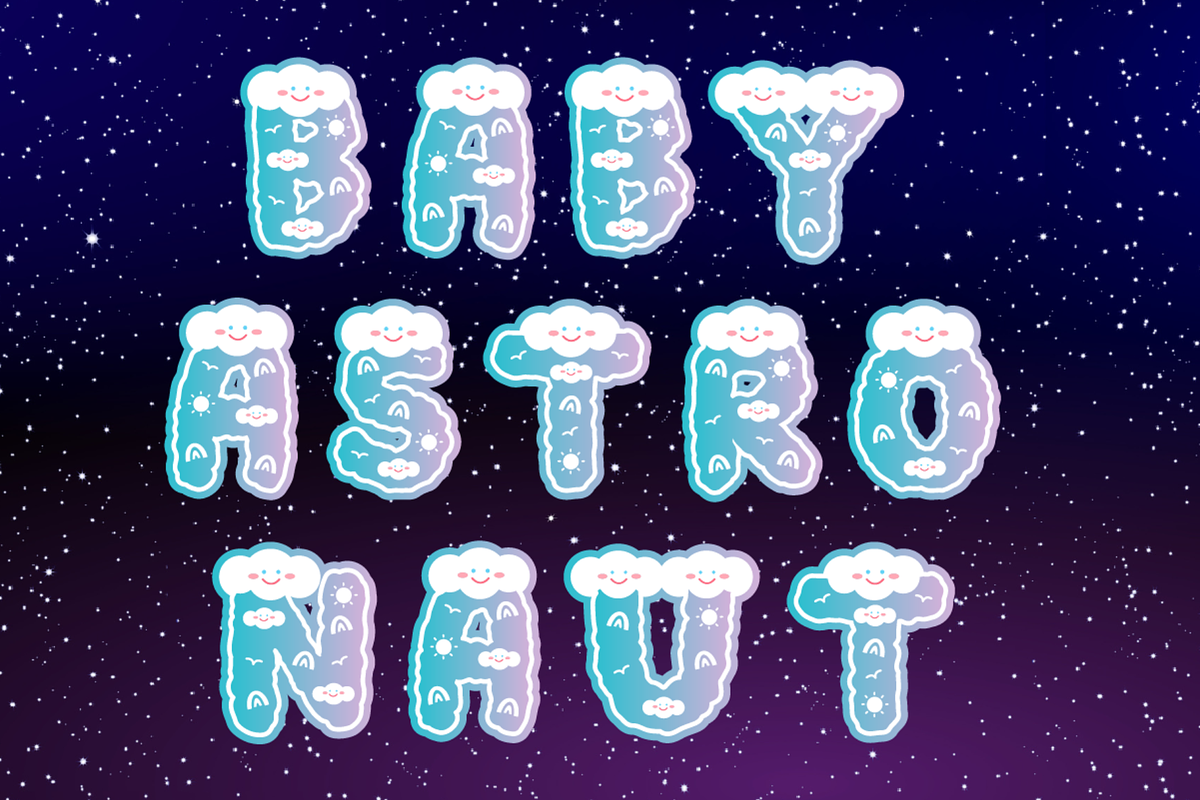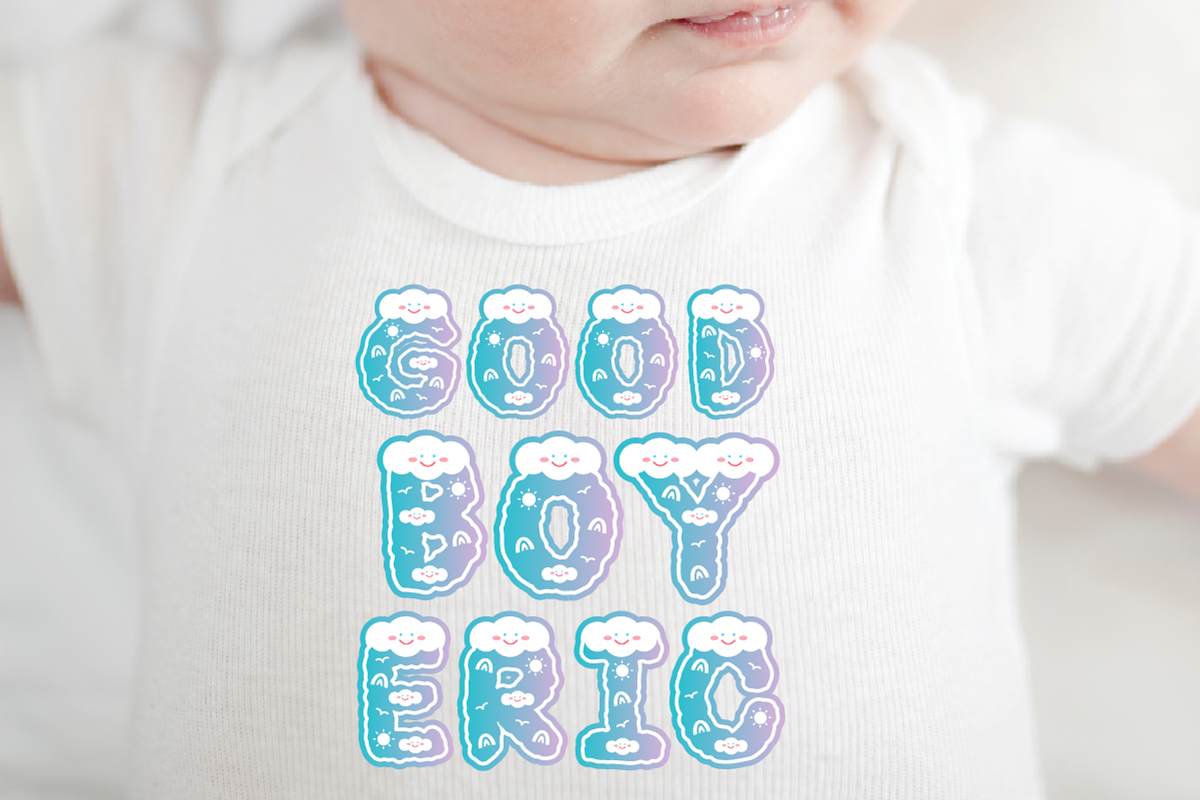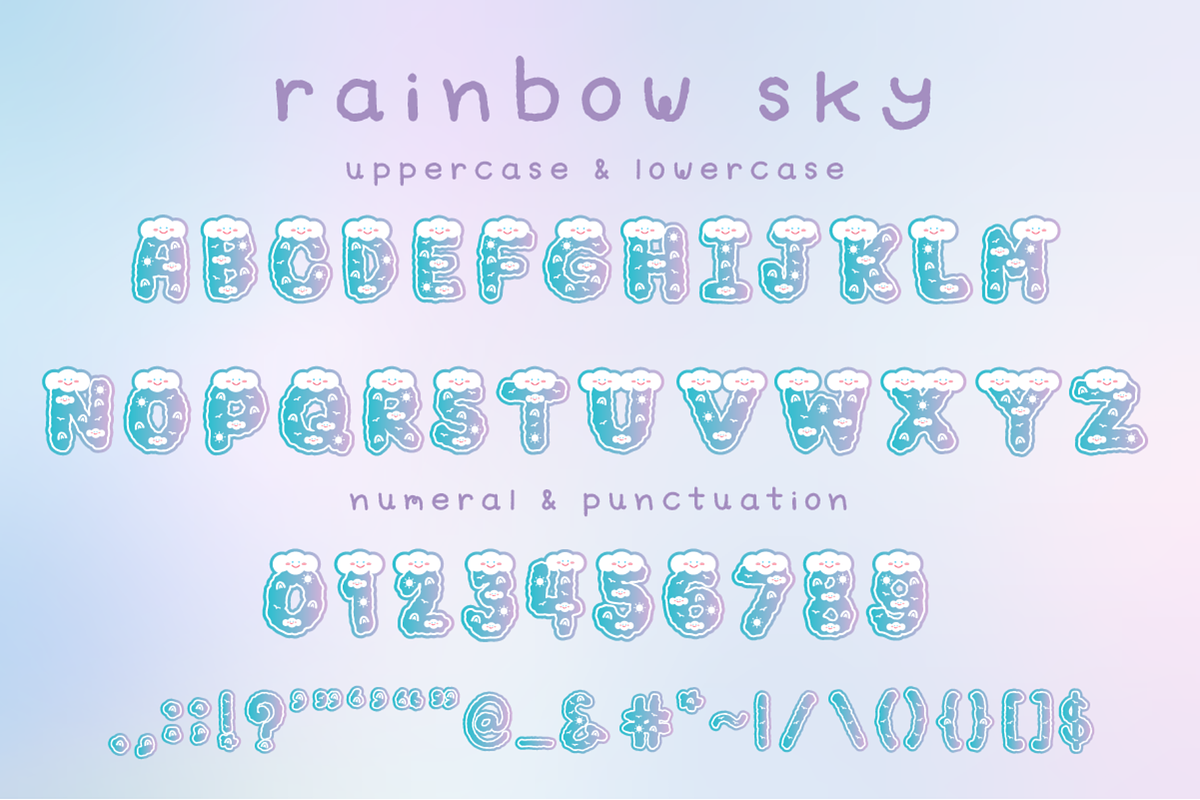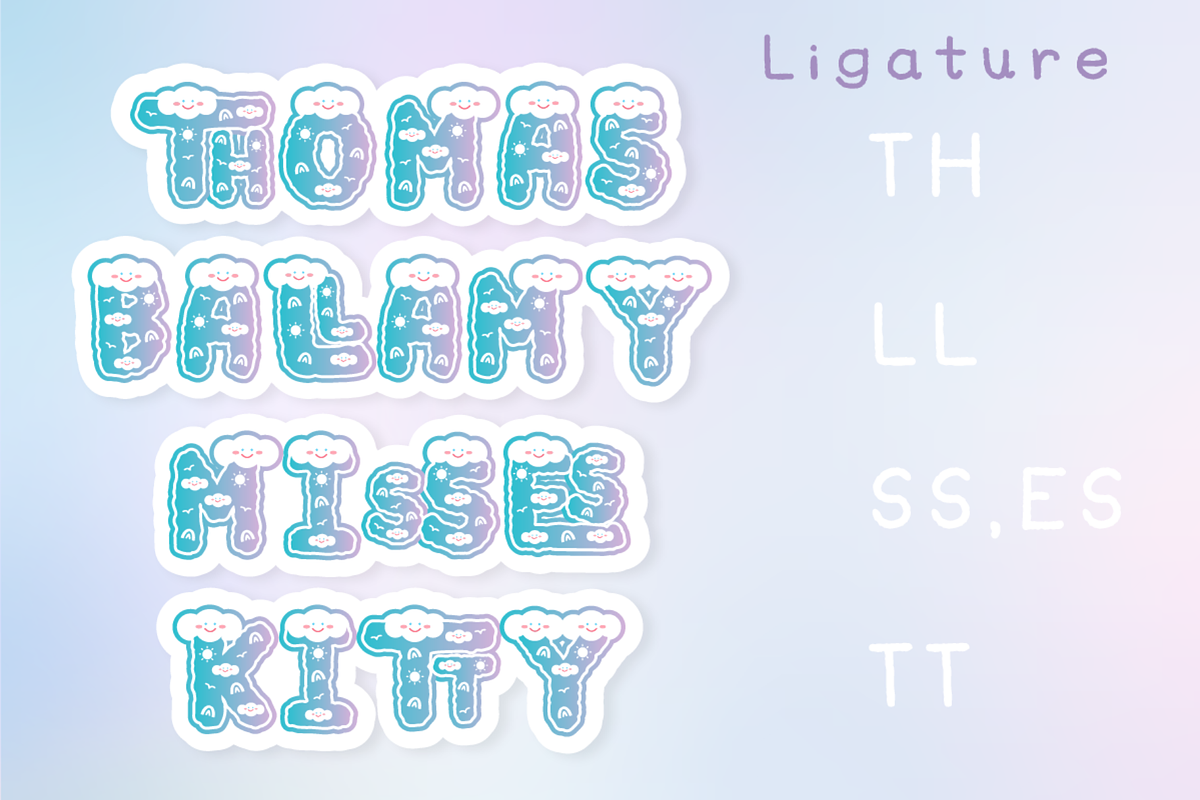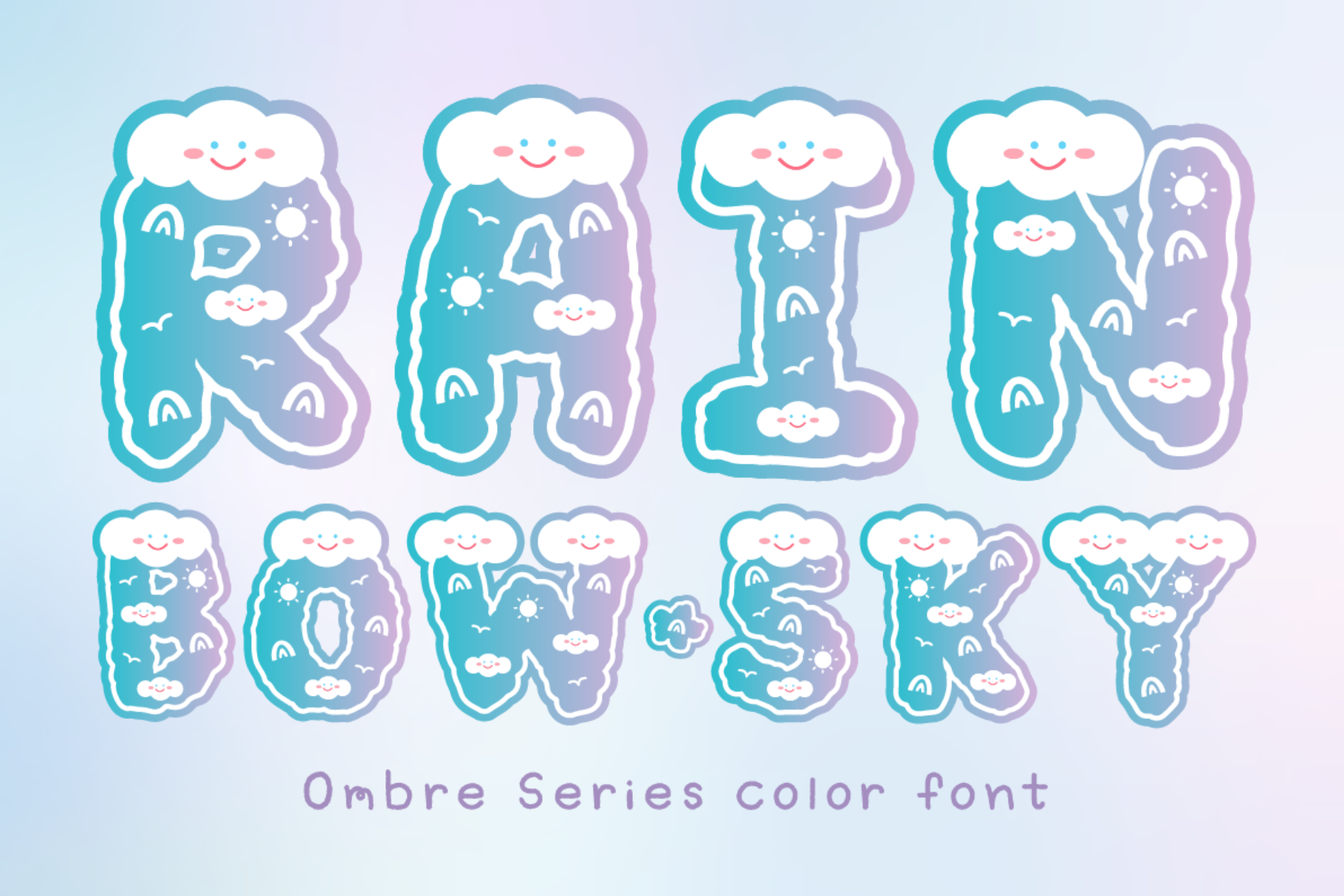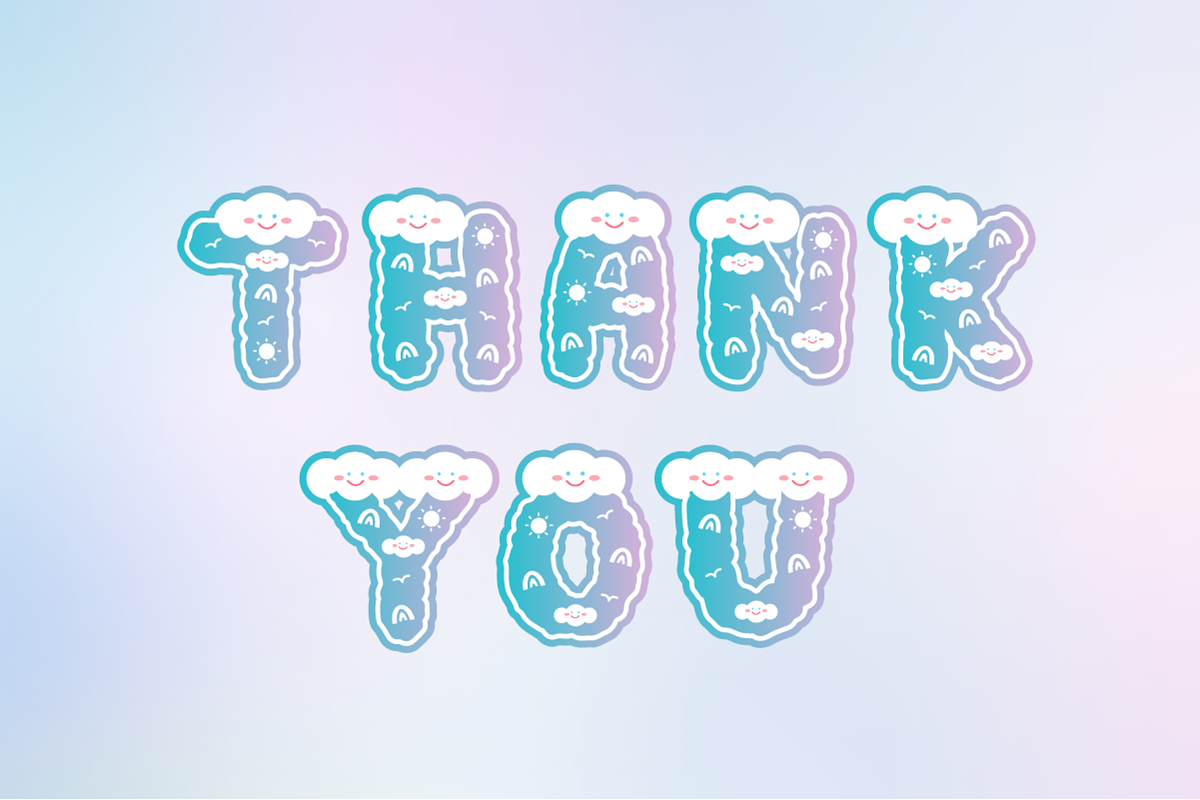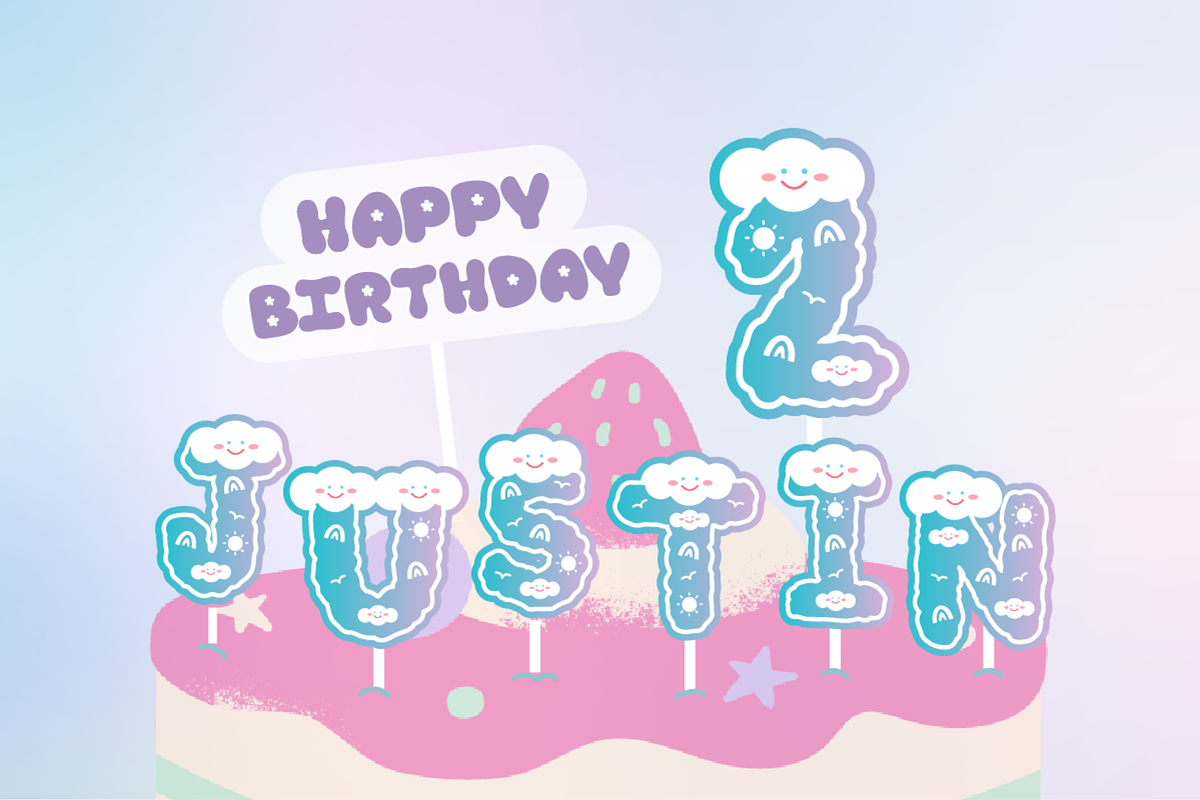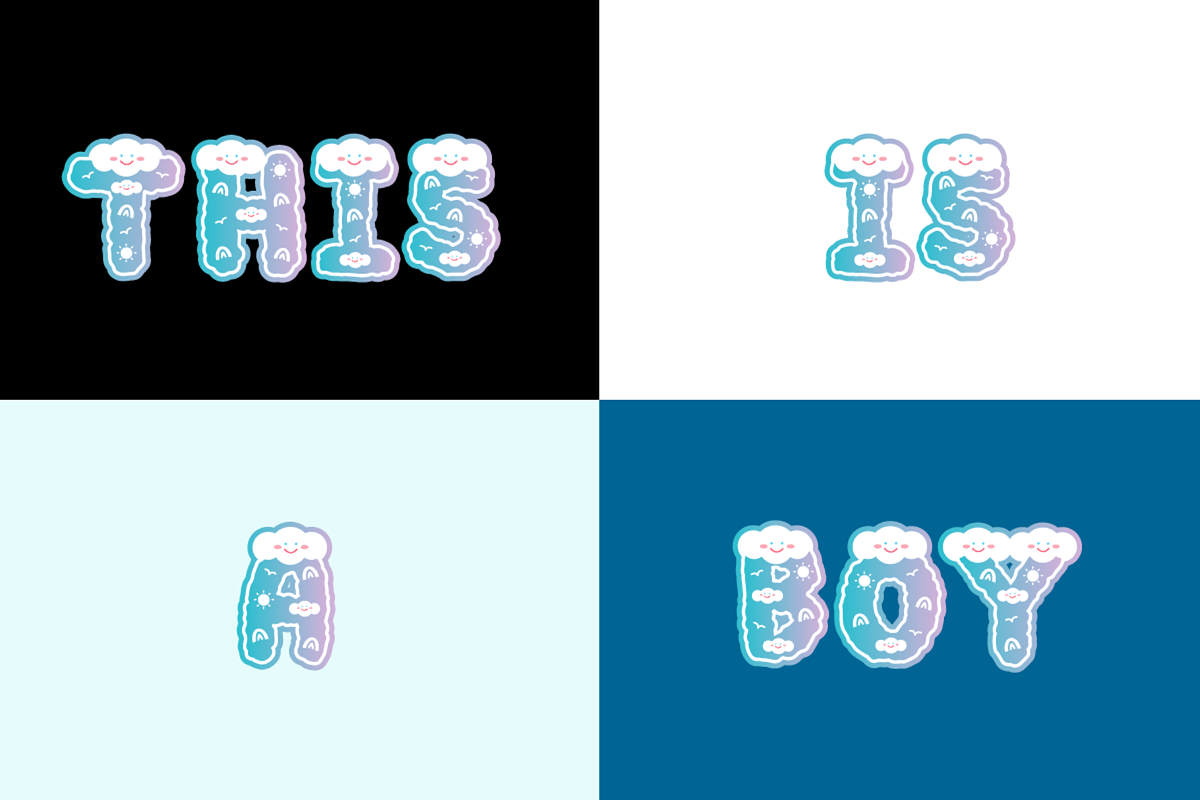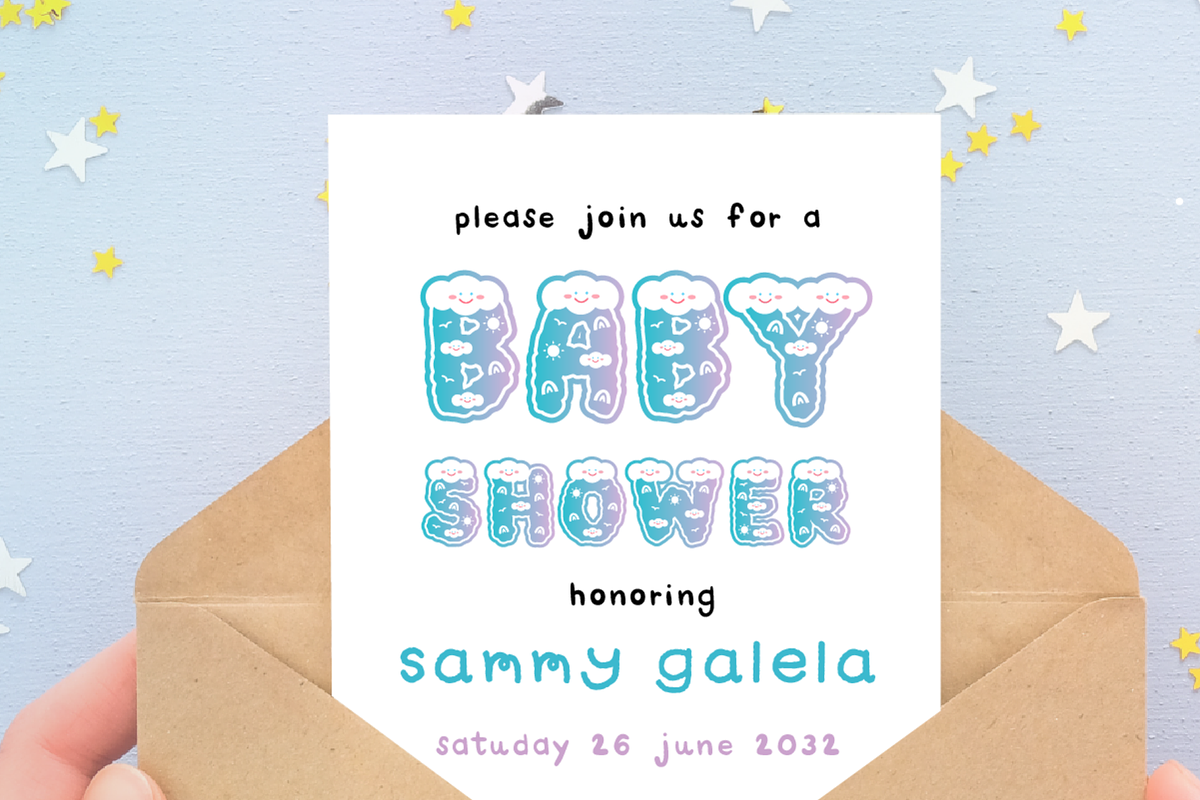
Rainbow Sky - SVG Color Cute Font
Rainbow Sky Cute SVG Color Font is a charming and whimsical typeface that brings a sense of joy and playfulness to any design. This delightful font is inspired by the vibrant colors of the rainbow and the dreamy nature of the sky. It combines elements of cuteness and decoration to create a truly unique and eye-catching aesthetic.